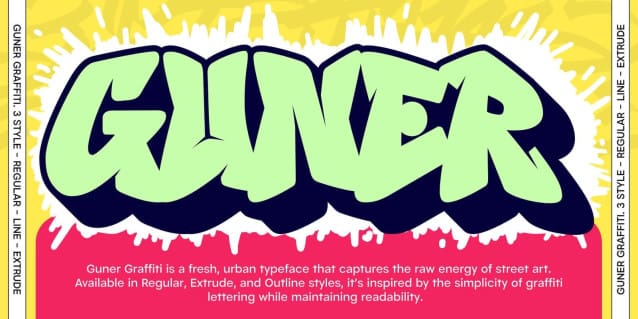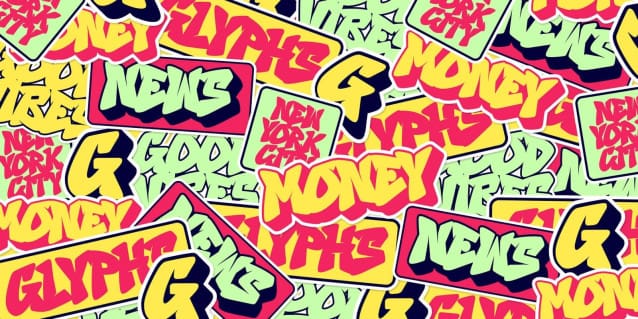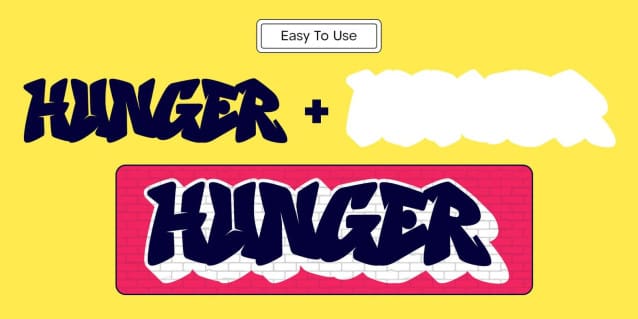
Guner Graffiti Font
Guner Graffiti Font is a fresh, urban typeface that captures the raw energy of street art. Available in Regular, Extrude, and Outline styles, it’s inspired by the simplicity of graffiti lettering while maintaining readability. Designed for large-scale applications, Guner Graffiti is perfect for posters, zines, stickers, apparel, and bold branding. Whether you’re creating a streetwear aesthetic or eye-catching visuals, this font brings a rebellious yet clean graffiti vibe to any project.